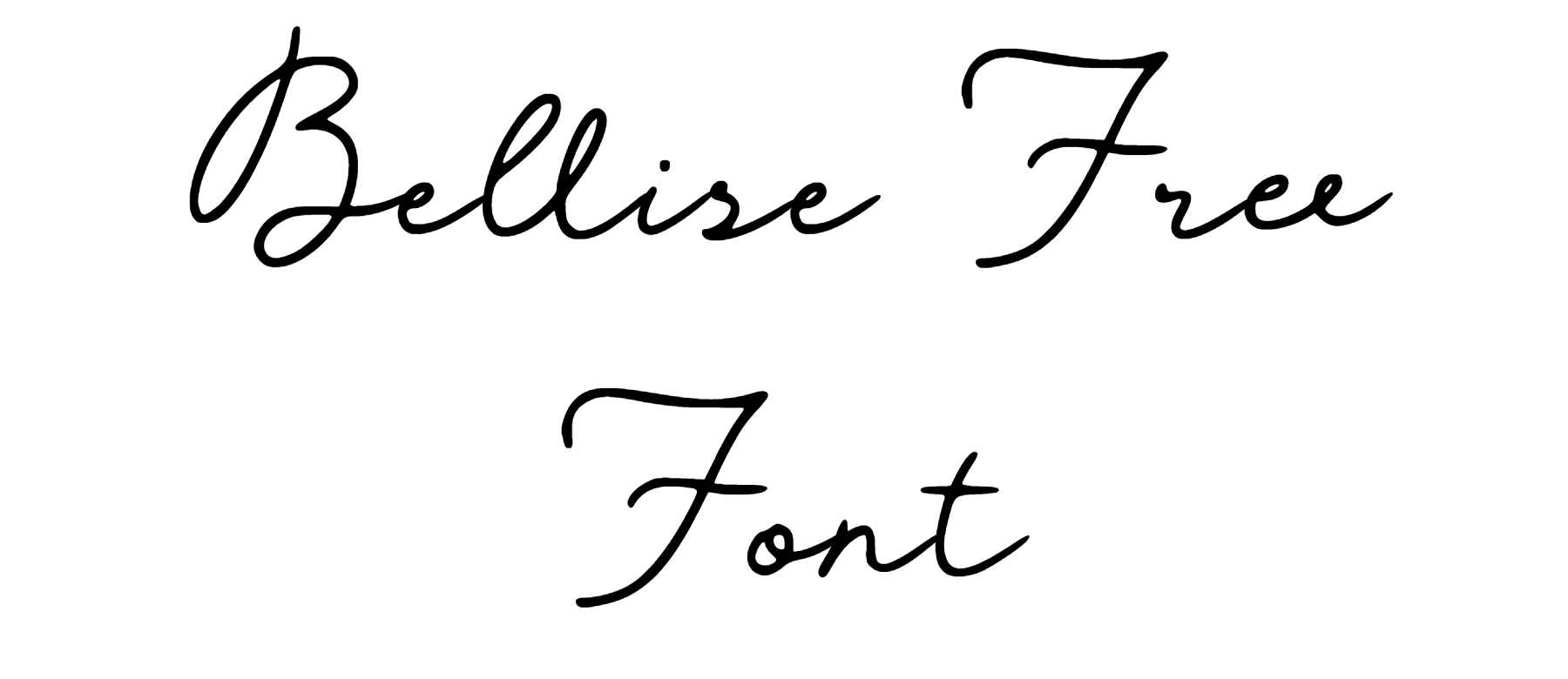
Bellise Free
Bellise Free is a handwritten font created by Alpaprana Studio (2026). The letters have the small wobbles and personality of real handwriting, so your text feels warm instead of printed. You can download it for free and test it with your own words in the preview above.
What You Can Type With Bellise Free
Bellise Free covers the full alphabet in upper and lowercase, plus all ten numbers, so you can set names, dates and prices without switching fonts. Everyday marks like &, !, ? and @ are there too. Thanks to its accented letters, it also works for Spanish, French, German, Portuguese and Italian, not just English.
How to Use the Alternate Letters in Bellise Free
Where Bellise Free Works Best
Bellise Free is a natural fit for greeting cards, journal pages and friendly social posts. Its lowercase letters are small compared to the capitals, so set it a size or two bigger than usual. Set it a bit larger than you would a normal text font. Handwriting styles lose their charm once they get too small to read comfortably.